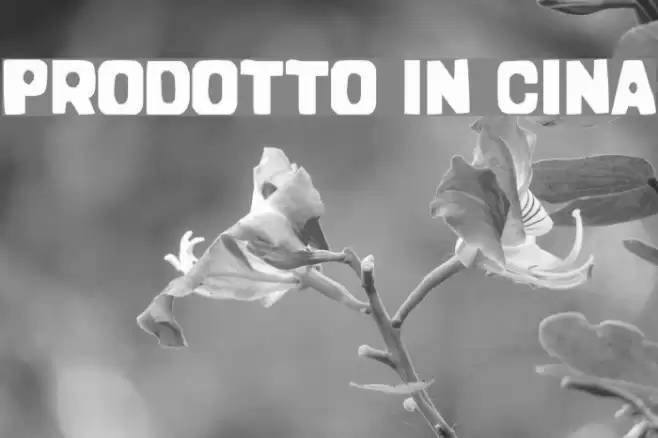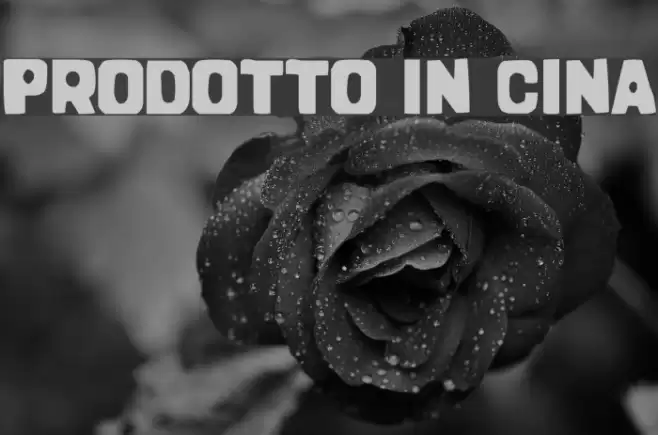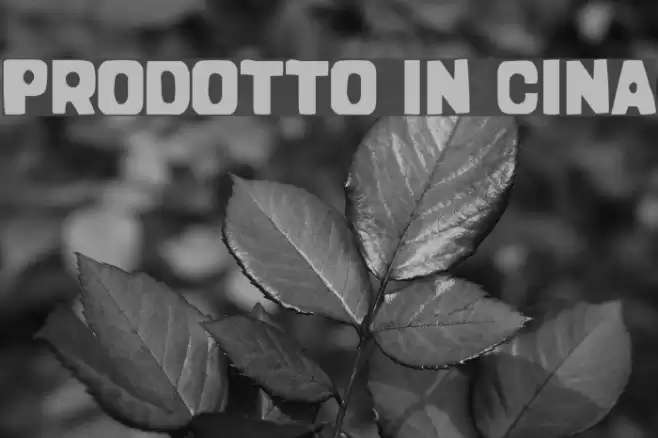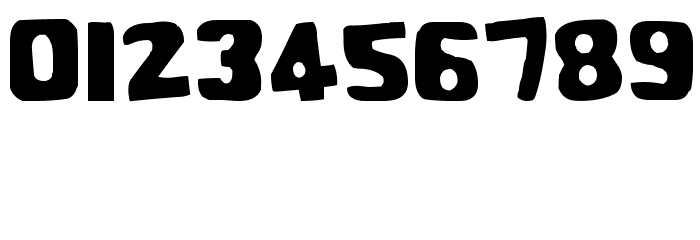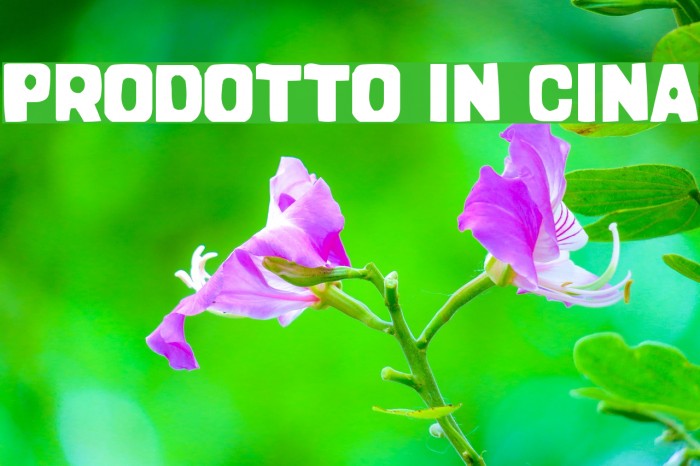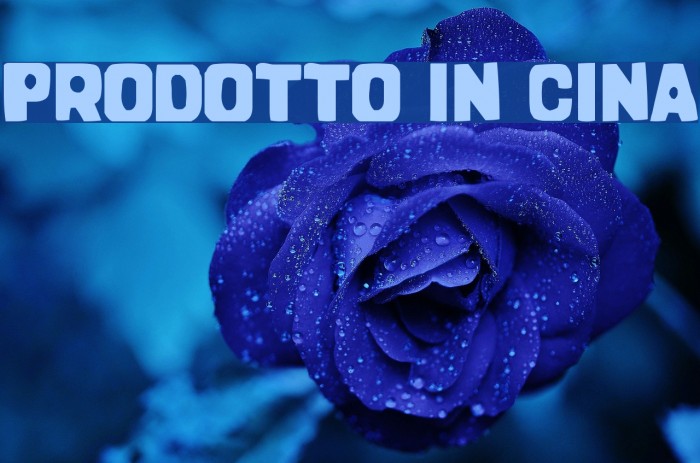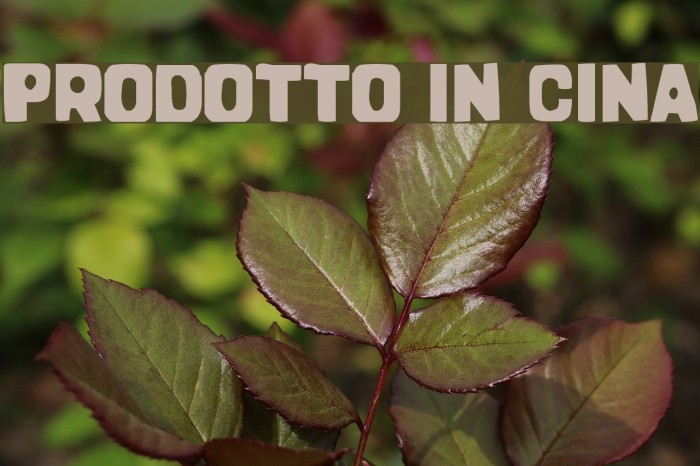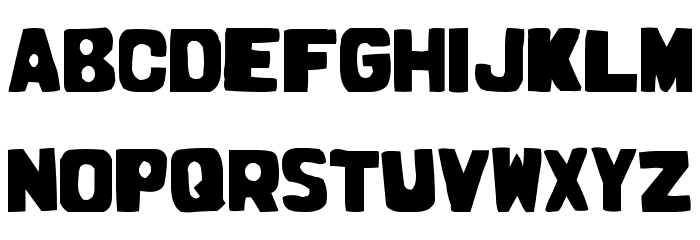
Prodotto In Cina Font
Prodotto In Cina Description
This font features bold, blocky characters with a playful and slightly irregular design. The uppercase letters are prominent and have a strong presence, making them ideal for attention-grabbing headlines. The numbers and special characters maintain the same boldness, ensuring consistency across different uses. The font's unique style is characterized by its uneven edges and slightly varied stroke widths, giving it a hand-crafted, artistic feel. This makes it suitable for creative projects that require a touch of personality and flair. The overall appearance is both modern and quirky, appealing to audiences looking for something distinctive and eye-catching.
A bold, playful font with irregular, hand-crafted edges from Distorted Eroded fonts.
- Proposed Projects: Ideal for posters, logos, children's books, and creative branding.
- Overall Style: Modern, Quirky